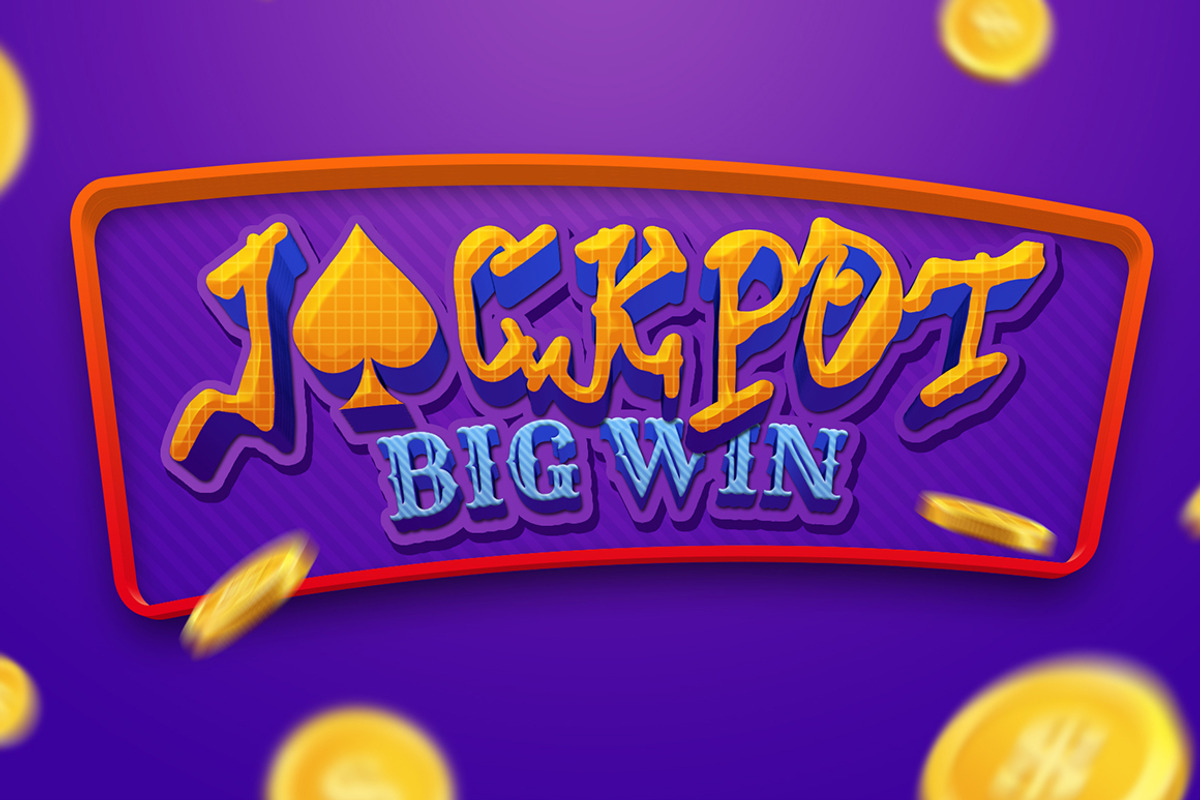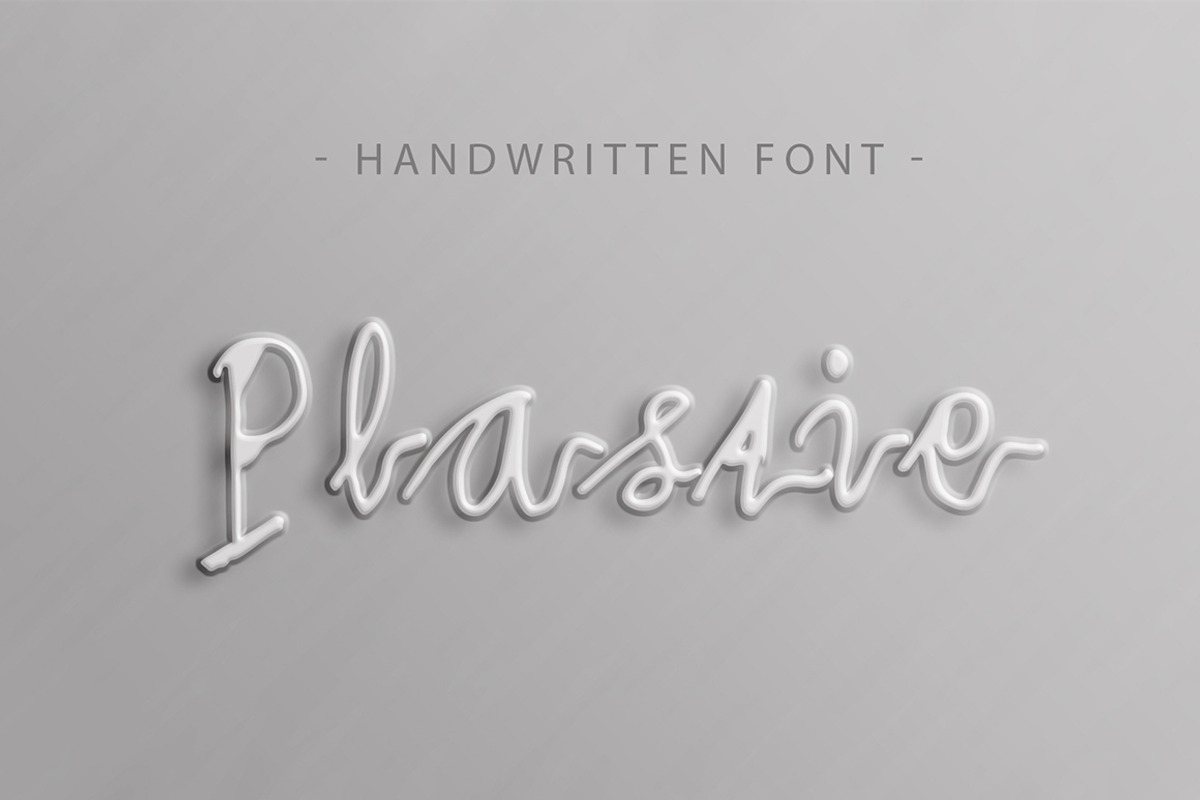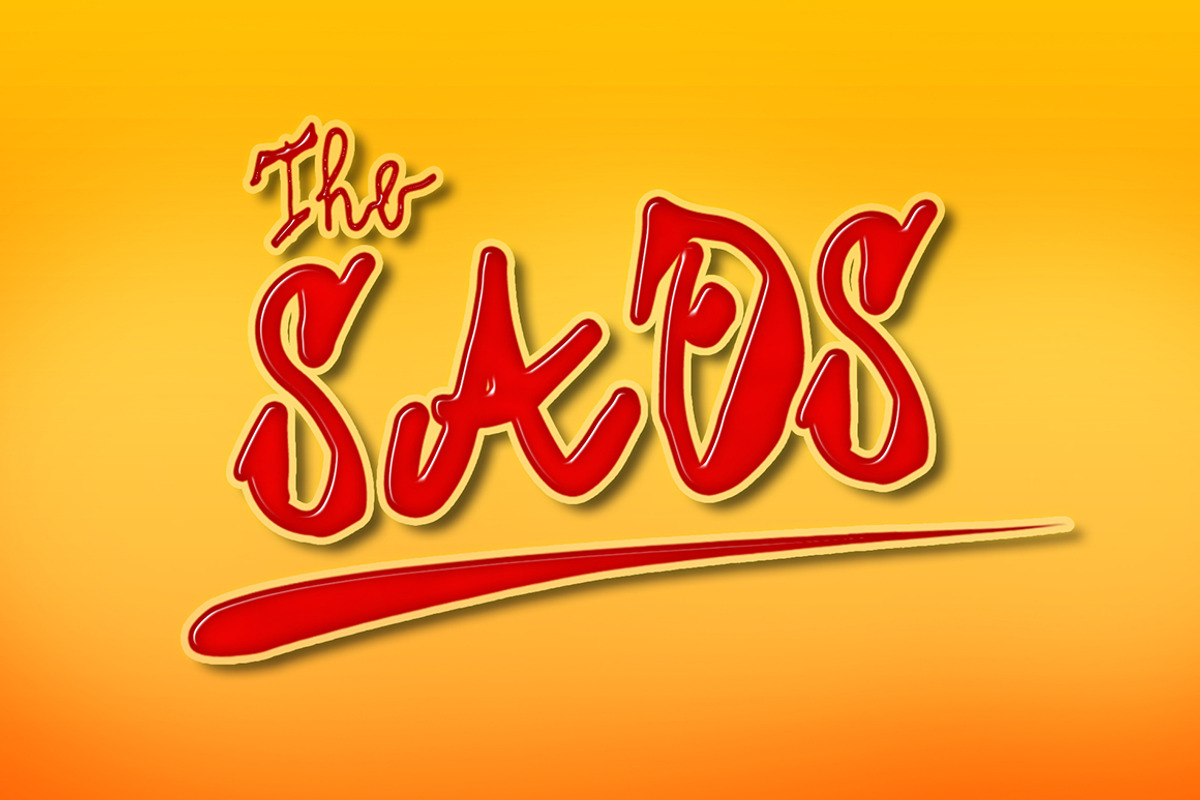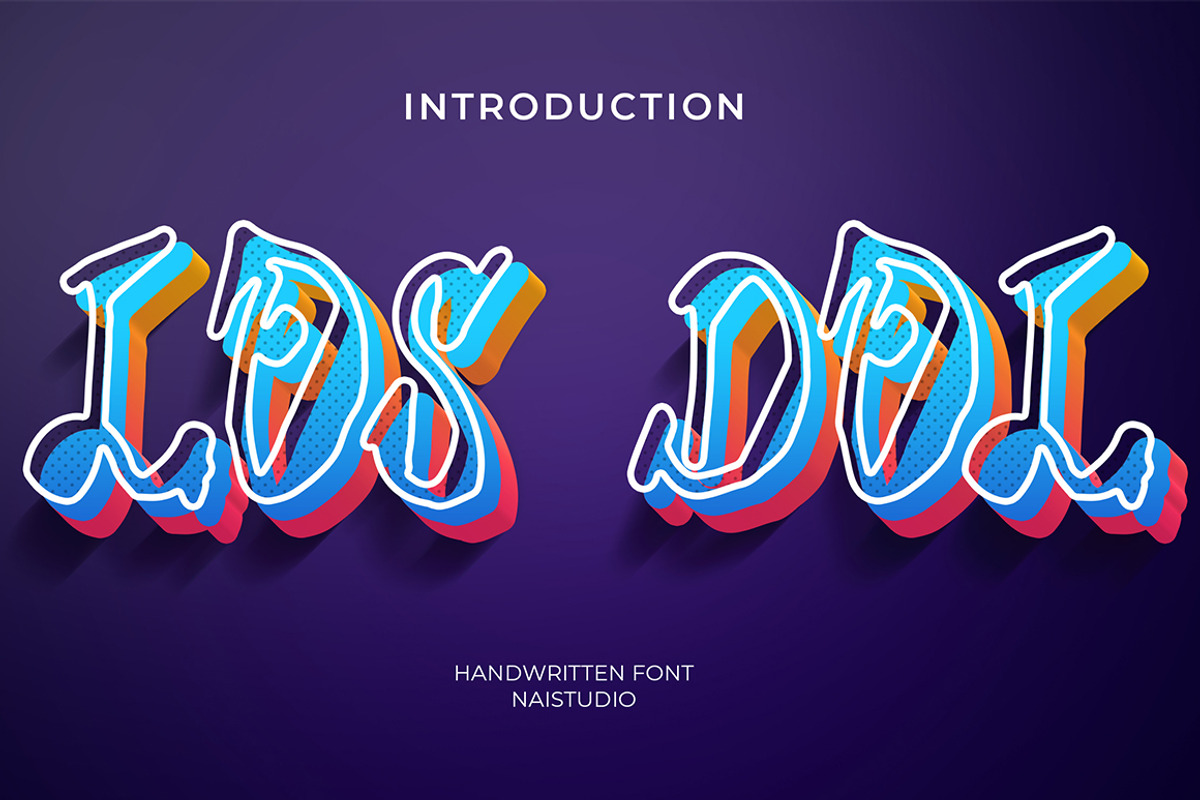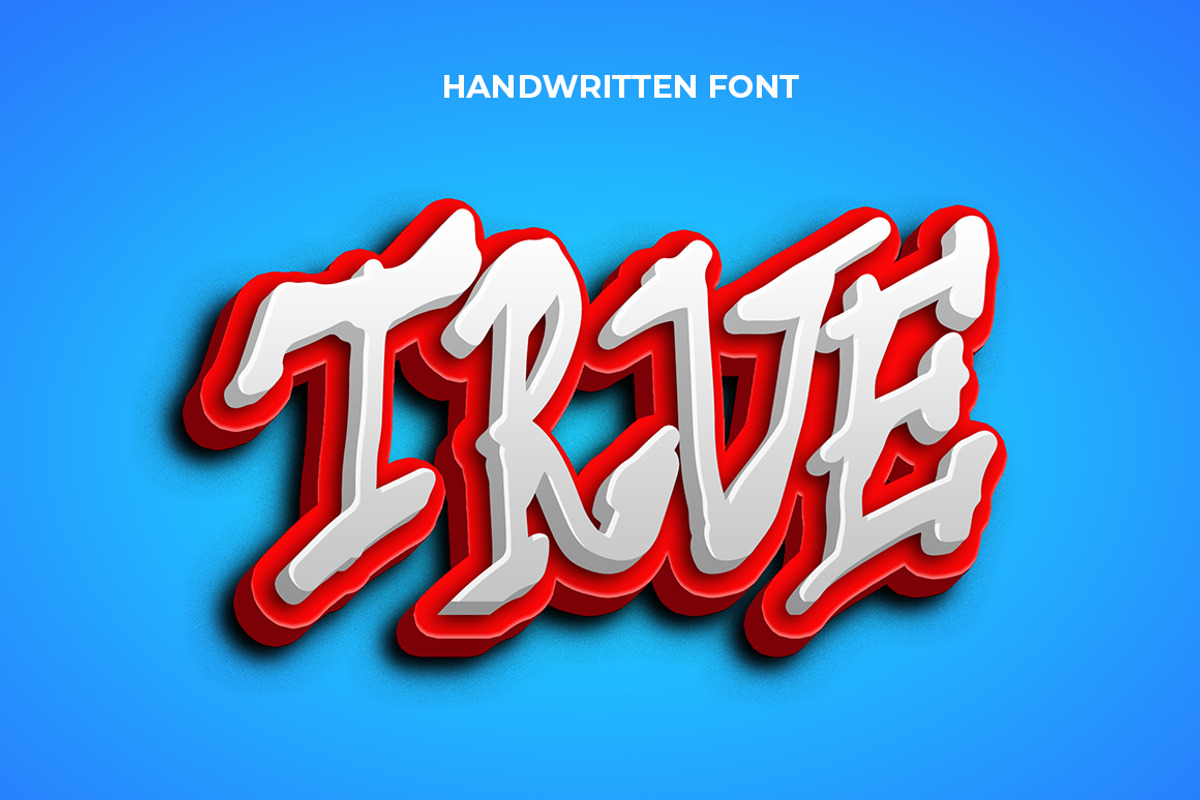
LOSDOL - Modern Graffiti Font
Introducing LOSDOL - Modern Graffiti Font
LOSDOL is a delicate, elegant and flowing handwritten font. It has beautiful and well balanced characters and as a result, it matches a wide pool of designs. Add it to your most creative ideas and notice how it makes them come alive!